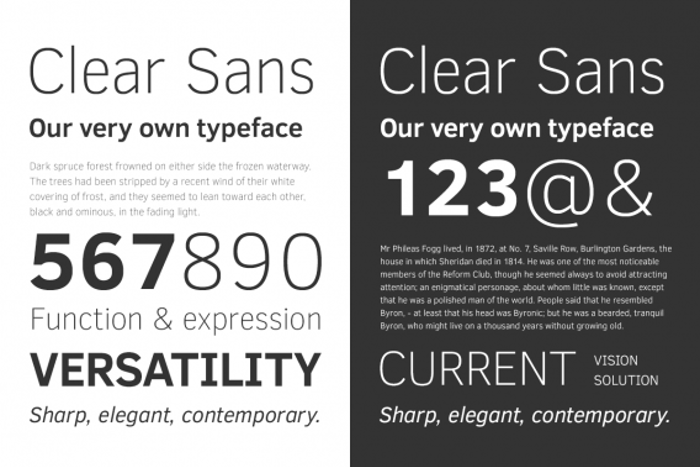
Clear Sans Font
Adopted by Mozilla for the Firefox for Android browser, Clear Sans has been recognized as a versatile OpenType font for screen, print, and Web. Clear Sans was designed with on-screen legibility in mind. It strikes a balance between contemporary, professional, and stylish expression and thoroughly functional purpose. It has a sophisticated and elegant personality at all sizes, and its thoughtful design becomes even more evident at the thin weight.
"I was drawn to Clear Sans for its practical nature. The different weights …offer great options for both readability and contrast, making all sorts of type and numbers easy for users to digest. More and more I noticed that I didn’t have to squint the way I usually do with fonts that I tend to see used a lot for dashboards, analytics, and other user interfaces.” – Typographica, Michael Surtees, March 11, 2014
It has minimized, unambiguous characters and slightly narrow proportions, making it ideal for UI design. Its strong, recognizable forms avoid distracting ambiguity, making Clear Sans comfortable for reading short UI labels and long passages in both screen and print.
This font supports a wide range of languages using Latin, Cyrillic, and Greek scripts. The font family includes medium, regular, thin, and liight weights with upright, italic, and bold styles.
Clear Sans was created and designed by Daniel Ratighan at Monotype under the direction of the User Experience team at Intel's Open Source Technology Center.
Beautiful, clean font.